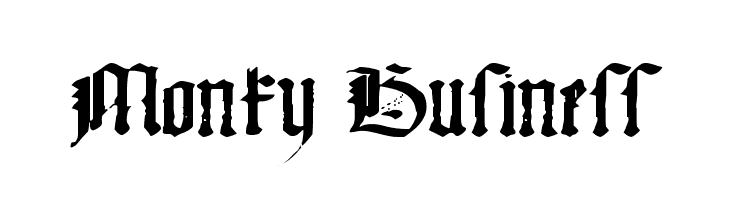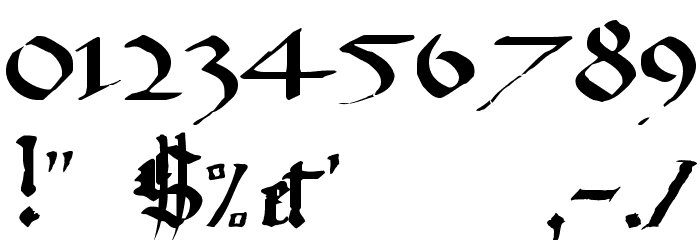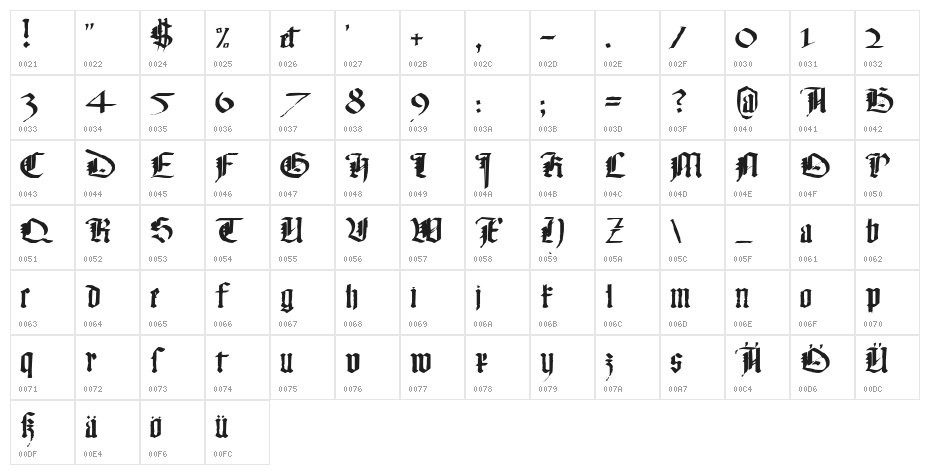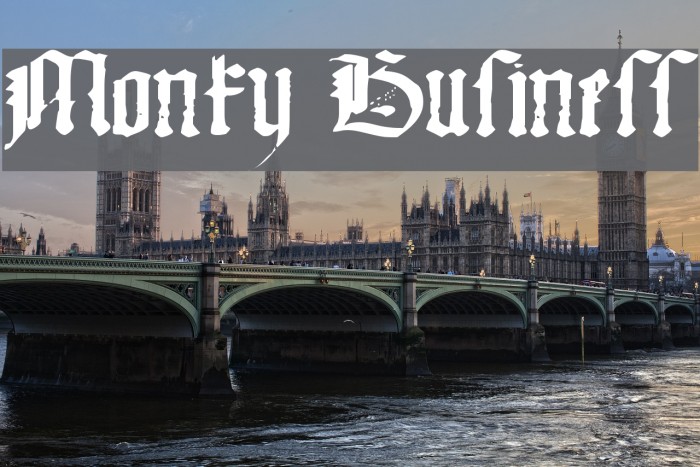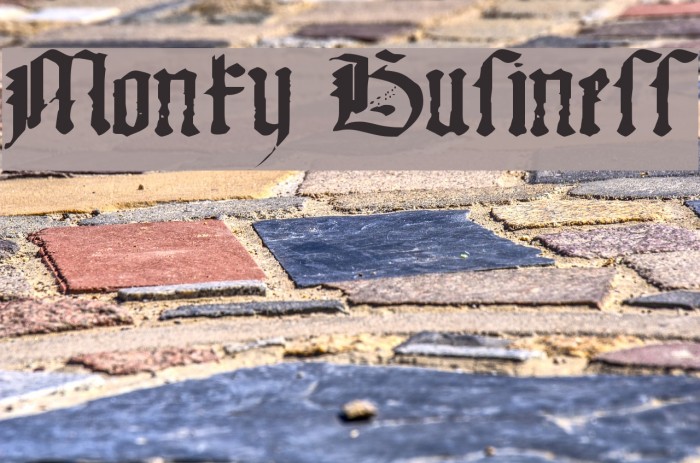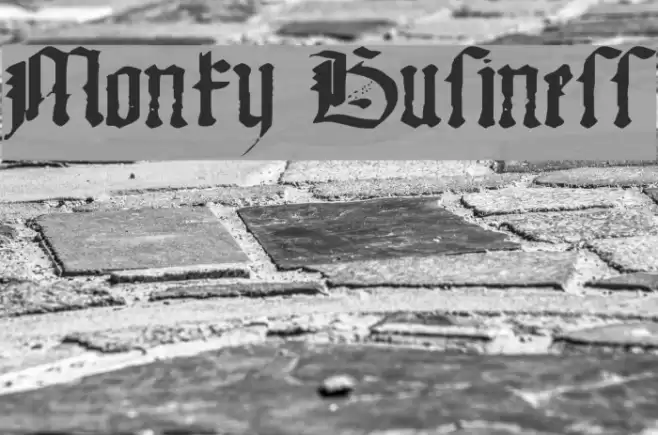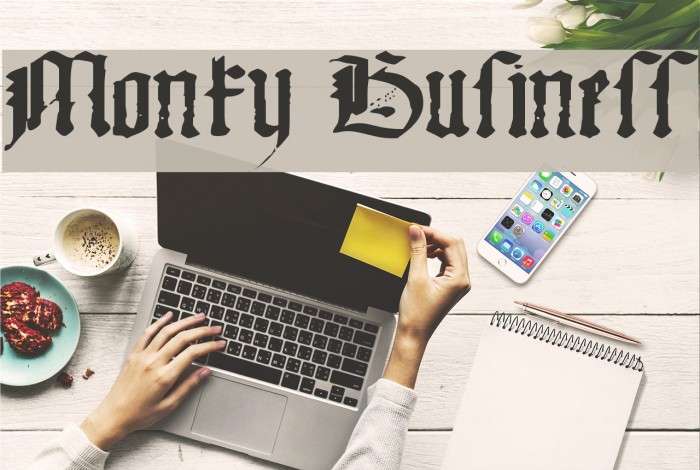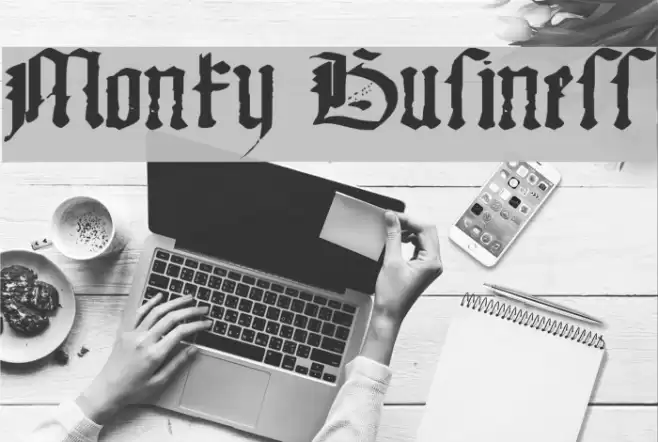
Monky Business Font
Monky Business Description
This font embodies a classic blackletter style with its intricate and bold strokes. The characters are sharply defined with pointed edges and dramatic flourishes, typical of traditional Gothic scripts. The uppercase letters are particularly ornate, featuring elaborate serifs and angular lines that give a sense of historical gravitas. The lowercase letters maintain the same level of detail, with a slightly more condensed form that enhances readability while preserving the decorative aesthetic. Numbers and special characters follow the same stylistic cues, ensuring a cohesive look across all glyphs. This font is perfect for projects that require a touch of medieval or vintage flair, such as historical documents, themed event invitations, or branding for products that wish to evoke a sense of tradition and craftsmanship.
Overall StyleVintage
Use CaseHeadlines, Logos, Decorative
Proposed ProjectsIdeal for historical documents, themed invitations, vintage branding, and decorative purposes.